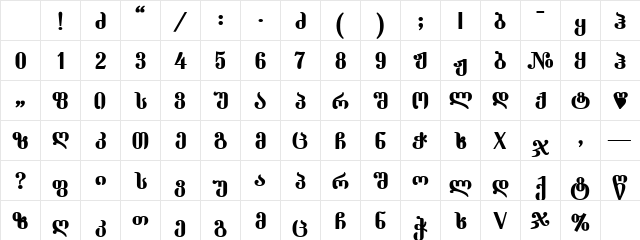
Complete Dumbadze-ITV Bold glyph index. Displaying only characters natively supported by Dumbadze-ITV Bold font.
Dumbadze-ITV is a composed and adaptable typeface that performs quietly and consistently across a wide range of design contexts. Its bold stroke weight gives it real presence on the page.